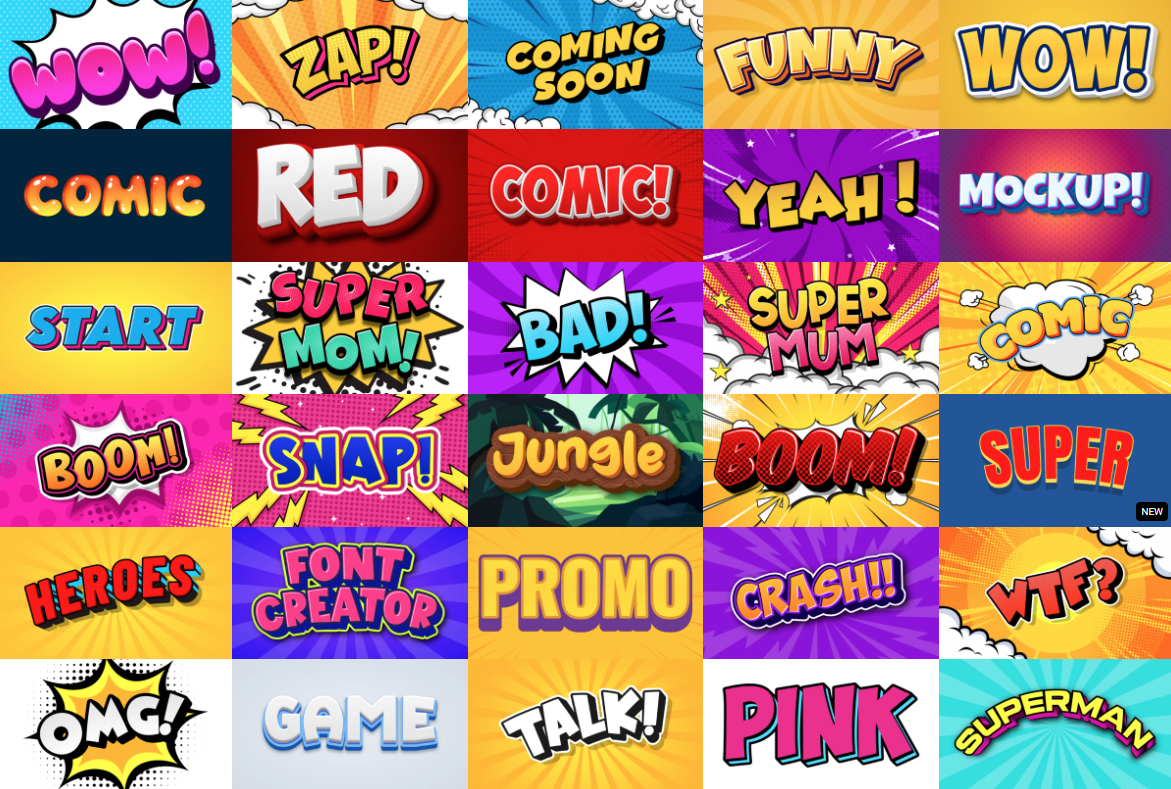
Comic Fonts and Cartoon Text Effects for Fun and Bold Designs
Comic fonts instantly bring a smile. They’re colorful, bold, and full of character — perfect for adding a playful touch to any design. Whether you want to create a superhero title, a funny meme, or a colorful logo, a comic font makes your message jump off the screen. Let’s explore how to use comic text effects to make your words come alive.
Why Comic Fonts Are So Popular
People love comic fonts because they’re expressive and easy to read. Their thick outlines and bright colors give a friendly, cartoonish feel that works in posters, videos, or even kids’ projects. A good comic font captures that hand-drawn energy you find in classic comic books or animated titles.
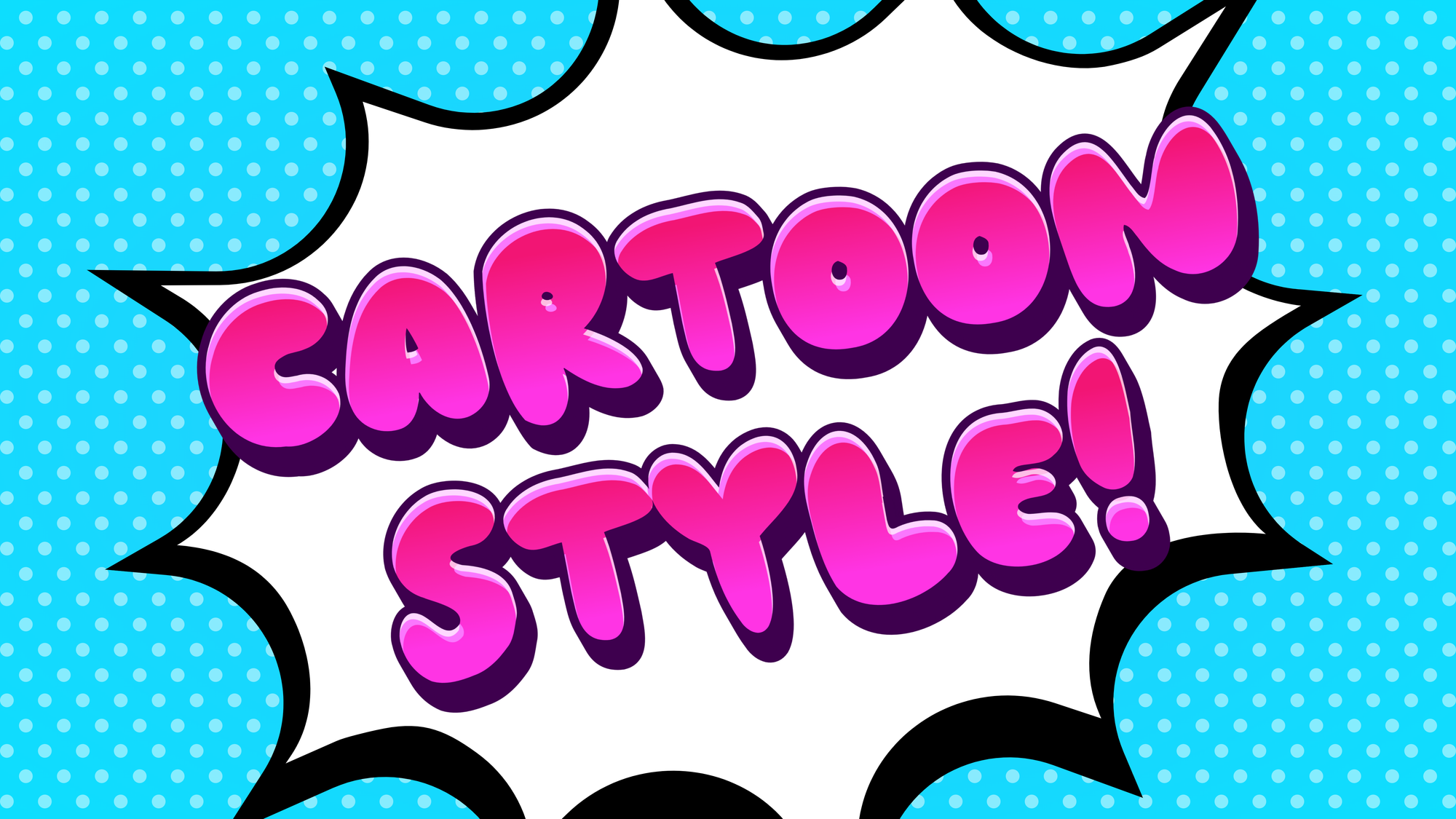
Bold and Dynamic Comic Text Effects
A comic text effect adds movement, shadow, and pop — just like in your favorite comic panels. Try combining strong outlines, halftone dots, and colorful gradients to create that punchy style. Words like “BOOM!”, “WOW!”, or “ZAP!” look amazing with a burst or ray background. It’s the perfect way to make your text feel alive and action-packed.
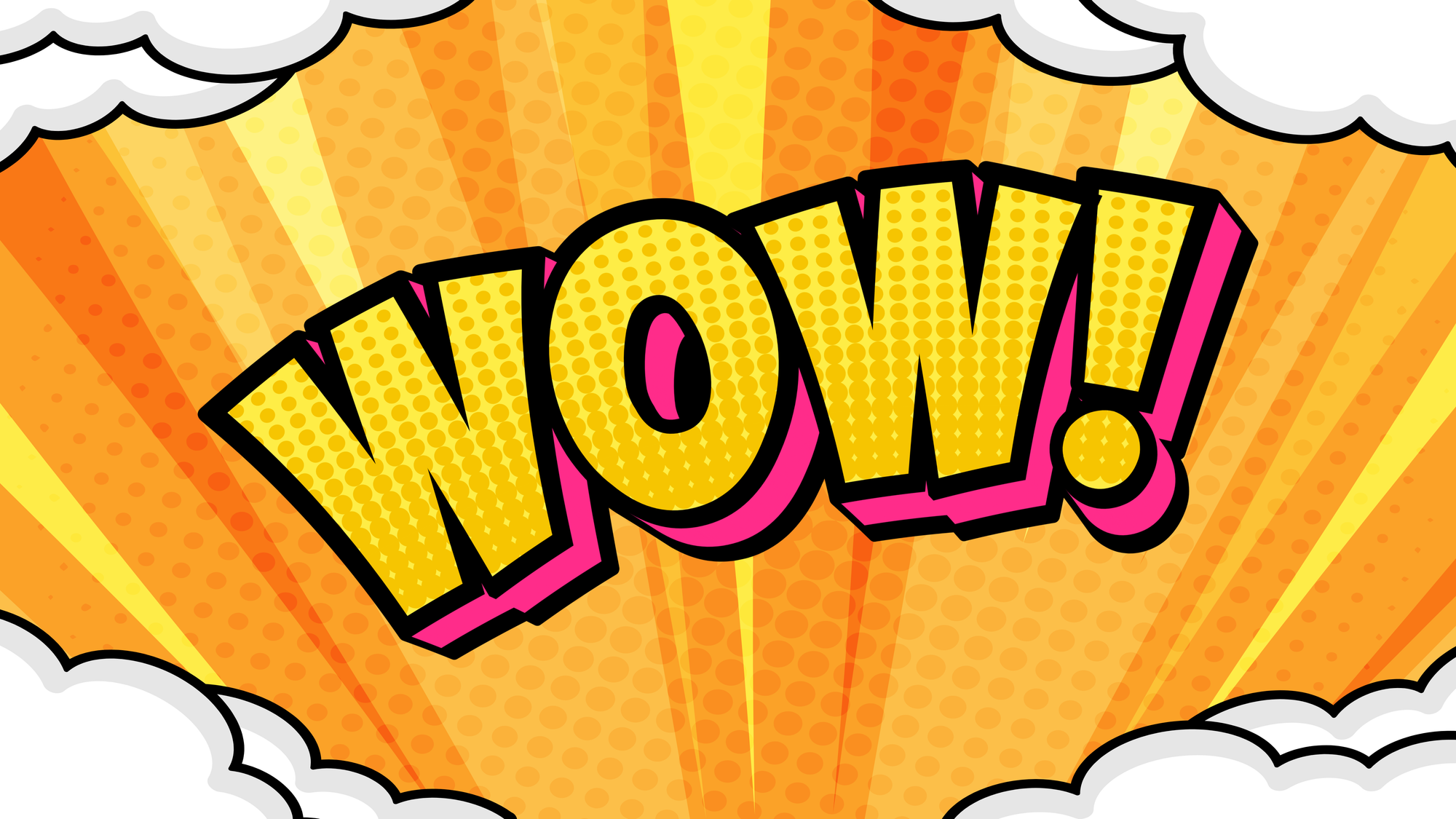
Superhero and Cartoon Font Styles
Looking for something heroic? A superhero font or cartoon font brings strong 3D depth and confidence to your message. Use it for gaming logos, comics, or posters that need bold personality. Red, yellow, and blue are classic colors that keep the design fun and energetic.
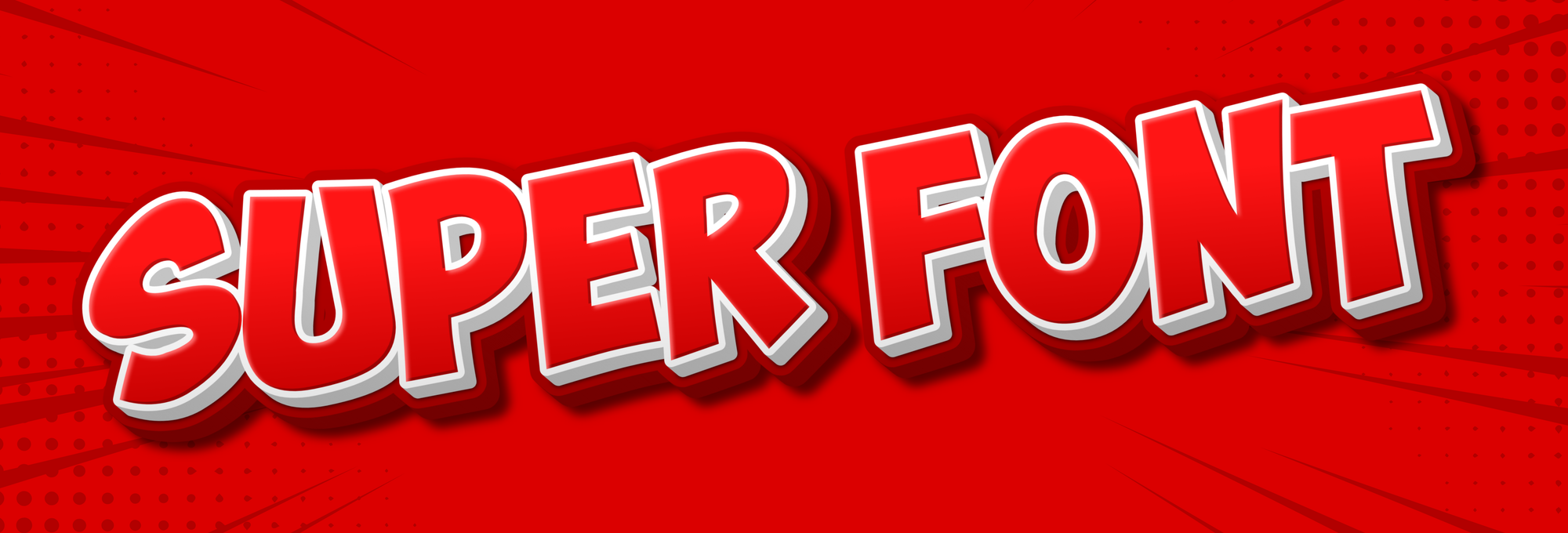
Modern Uses of Comic Typography
Comic typography isn’t just for kids. Designers use comic styles to add personality to modern branding, YouTube thumbnails, and pop culture designs. Paired with 3D shadows or glossy highlights, it gives a cool mix of nostalgia and modern creativity. The style feels spontaneous and dynamic — perfect for grabbing attention online.
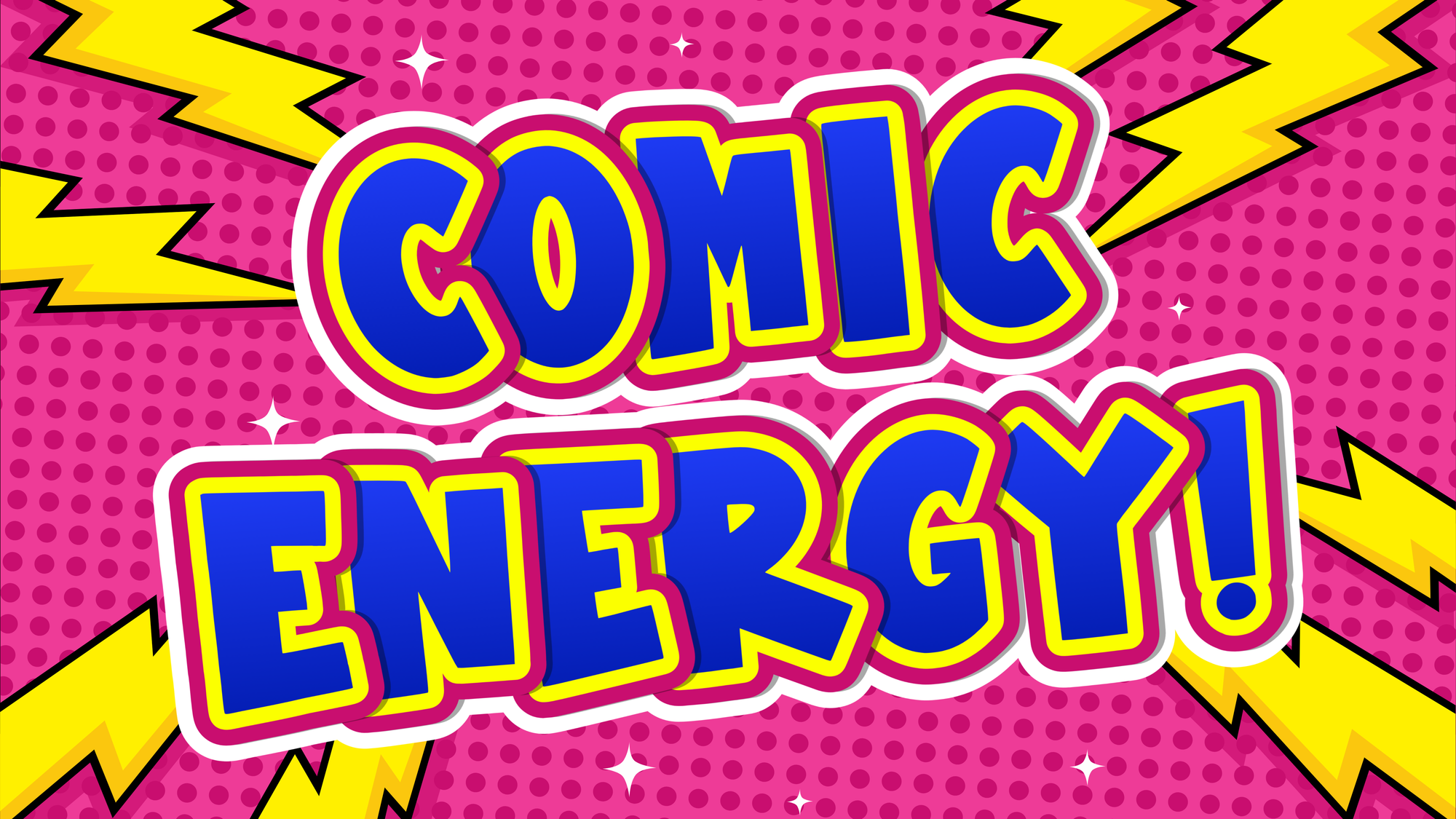
Conclusion